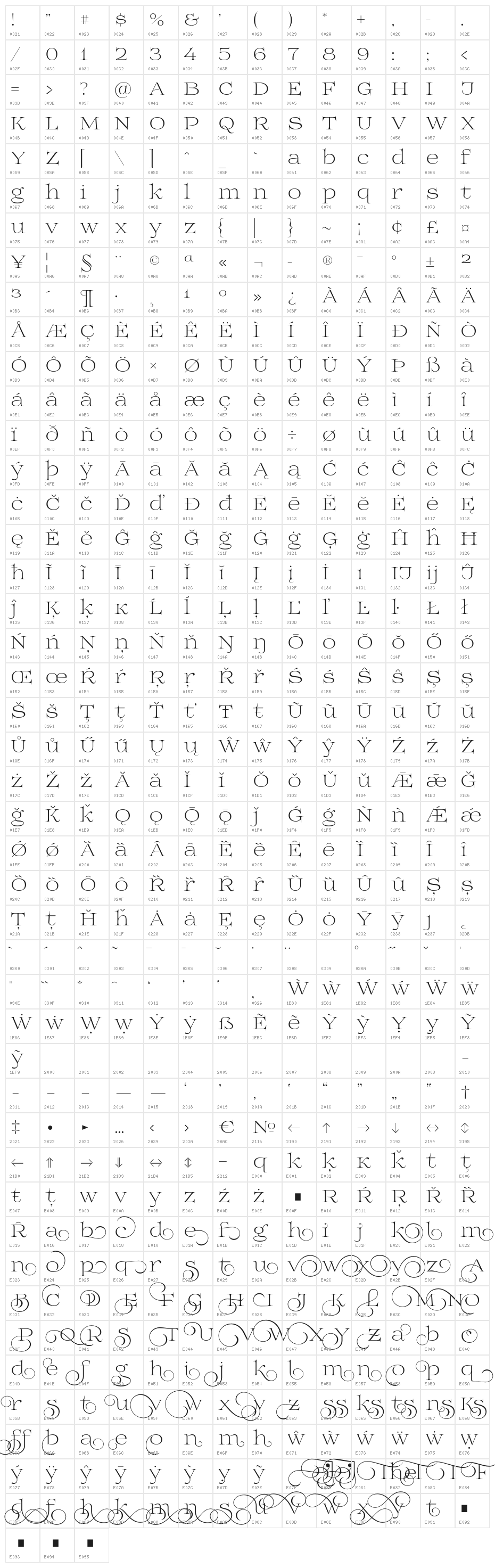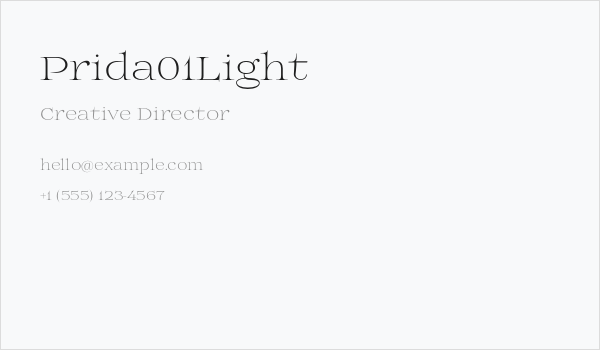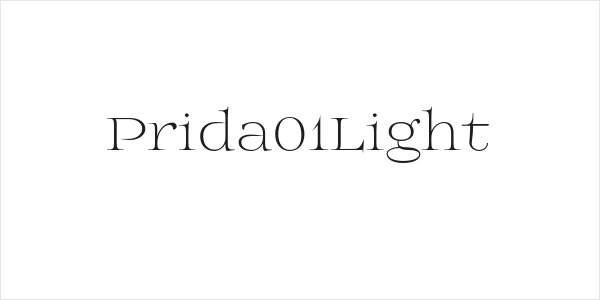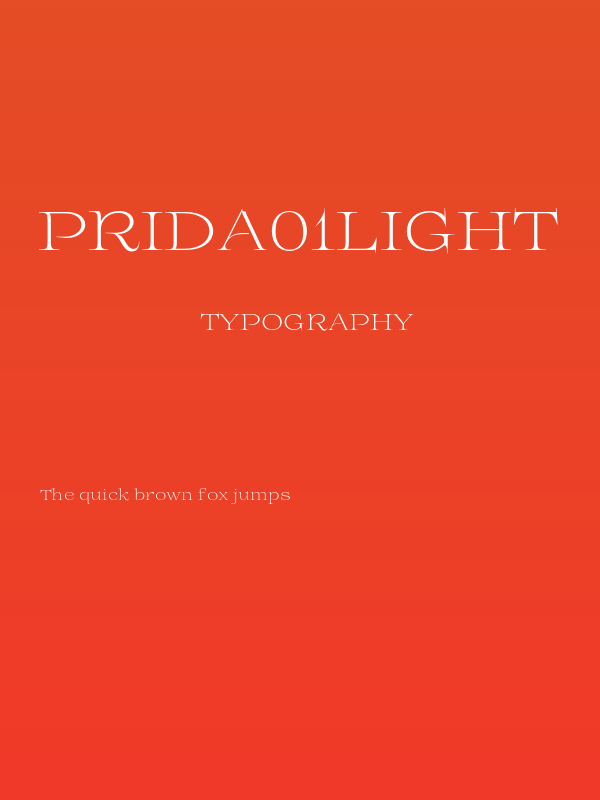
Prida01Light Font
Prida01Light Description
This font exhibits a refined and elegant style, characterized by its thin, elongated serifs and high contrast between thick and thin strokes. The uppercase letters are distinguished by their sharp, pointed serifs and a slight curvature that adds a touch of sophistication. The lowercase letters maintain a consistent style with a graceful flow, particularly noticeable in the rounded forms of 'a', 'b', and 'd'. The numerals are distinct and maintain the same high contrast, with the '2' and '3' featuring elegant curves. Special characters are designed with the same attention to detail, ensuring a cohesive appearance across all glyphs. Overall, this font combines classic serif elements with a modern twist, making it suitable for a variety of design applications.
| Use Case | Headlines, Logos, Editorial design |
| Proposed Projects | Ideal for luxury branding, editorial design, wedding invitations, and high-end product packaging. |